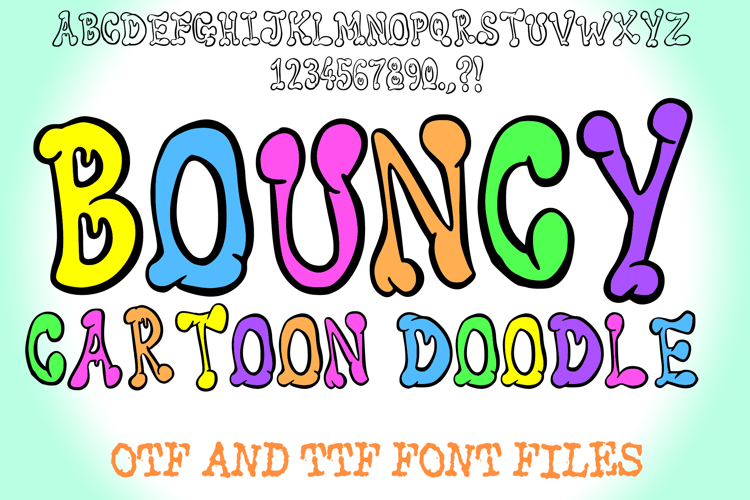
I’m so excited to share my newest creation with you – the Bouncy Cartoon Doodle Font! This is a hand-drawn, playful display font designed to bring energy, color, and personality to your projects. If you’ve been searching for a fun doodle font or a cartoon-style typeface, this one’s for you.
I’ve always loved doodles, squiggles, and bouncy bubble letters. They capture creativity in its purest form – free, fun, and full of life. That’s why I designed Bouncy Cartoon Doodle Font: to give designers, creators, and playful brands a tool that instantly makes their work pop.